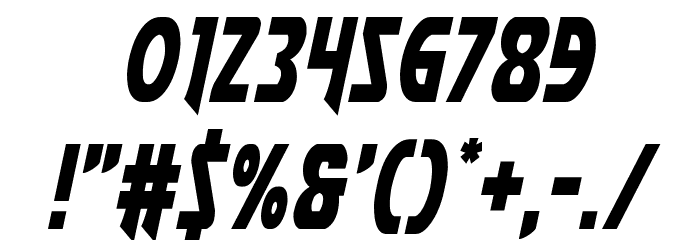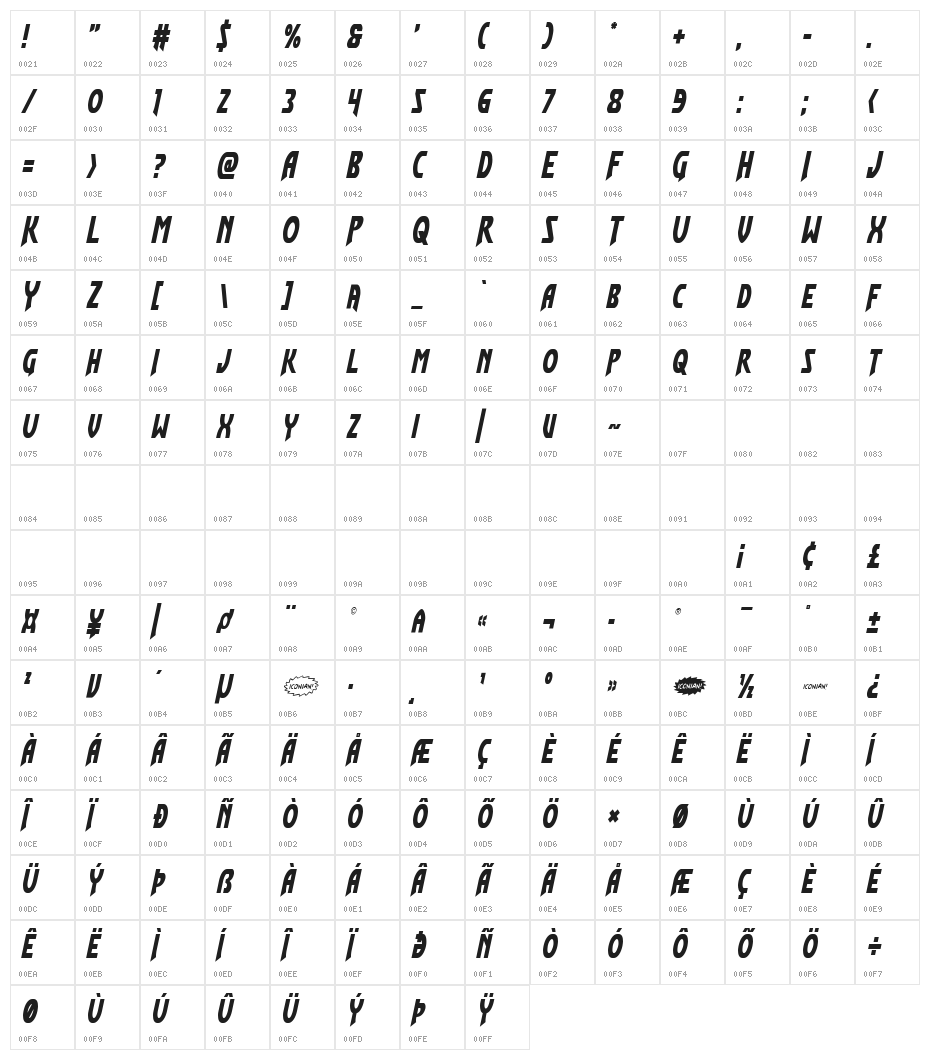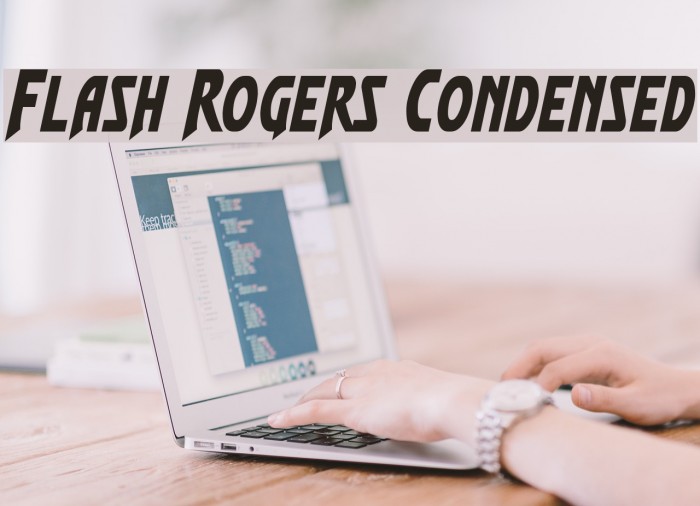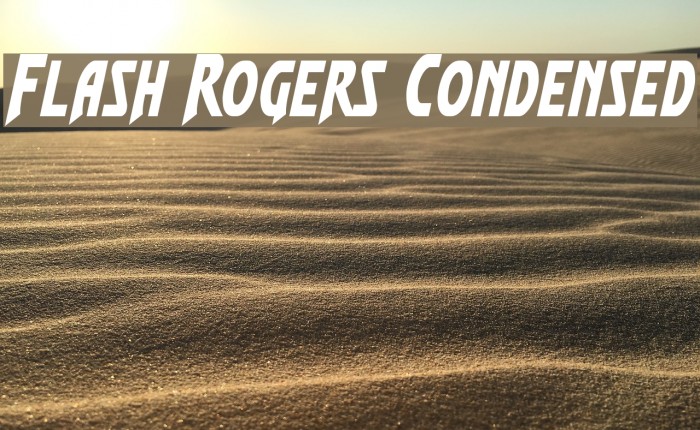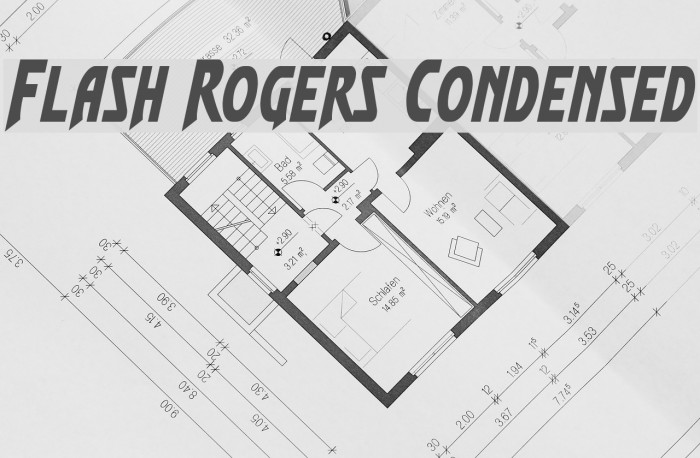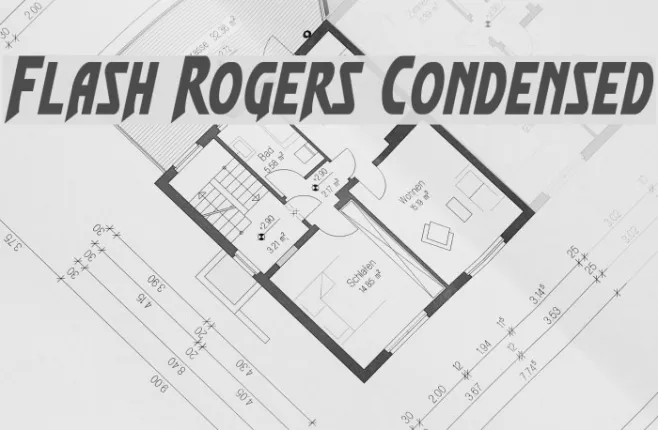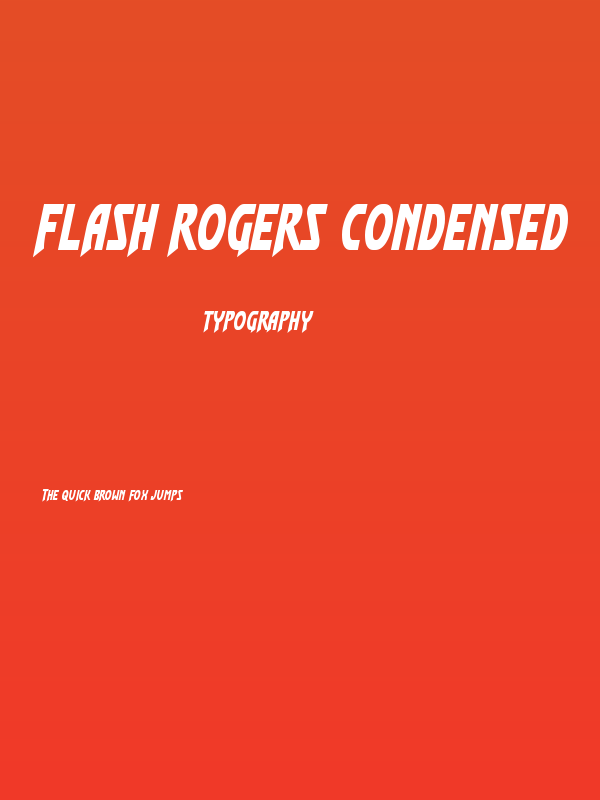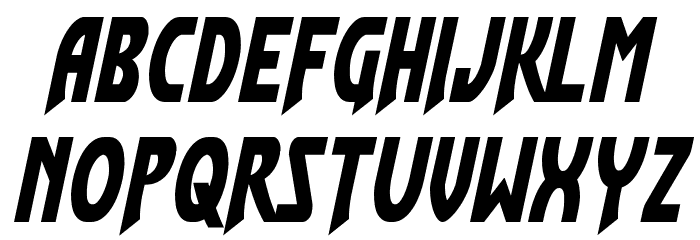
Flash Rogers Condensed Font
Flash Rogers Condensed Description
This font features a bold, dynamic style with sharp, angular edges and a condensed form. The characters are slanted, giving a sense of motion and speed, reminiscent of futuristic or sci-fi themes. The uppercase and lowercase letters maintain a consistent height, enhancing its uniformity. Numbers and special characters follow the same stylistic approach, ensuring cohesion across all elements. The font's design is striking and attention-grabbing, making it ideal for impactful visual statements.
| Proposed Projects | Ideal for sci-fi movie posters, video game titles, sports branding, and dynamic advertising campaigns. |